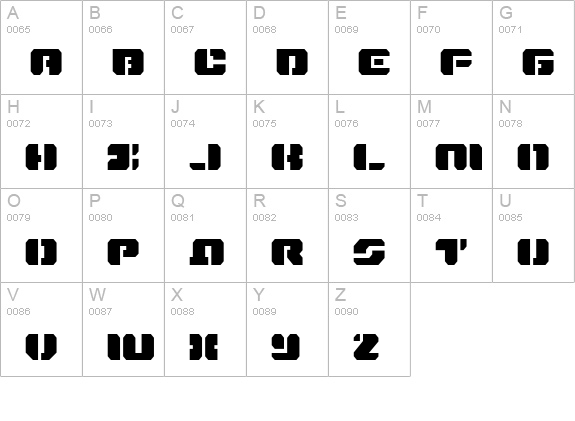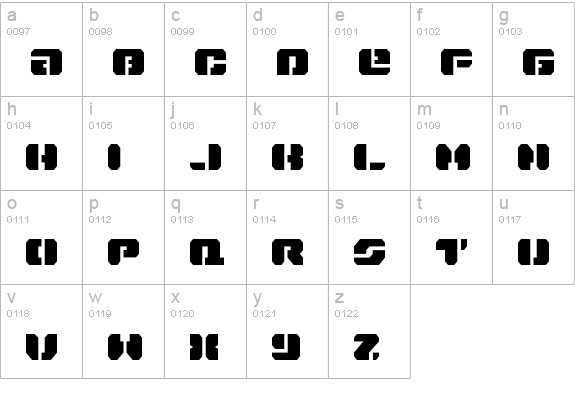
Dan Stargate Font Details
Introducing the Dan Stargate font, a captivating and futuristic typeface that brings a touch of modernity to your designs. This font features sleek lines and sharp angles, making it perfect for projects that require a contemporary and dynamic look. With its unique sci-fi inspired design, Dan Stargate is a versatile font that can be used for a variety of creative purposes, from branding to packaging to digital art. The best part? Dan Stargate is available for free download at FontsMarket.com, allowing you to easily access this stylish font and incorporate it into your projects without any cost. Whether you're a graphic designer, artist, or hobbyist, Dan Stargate offers endless possibilities for creating eye-catching and innovative designs. Elevate your creations with the bold and futuristic aesthetic of Dan Stargate font today!